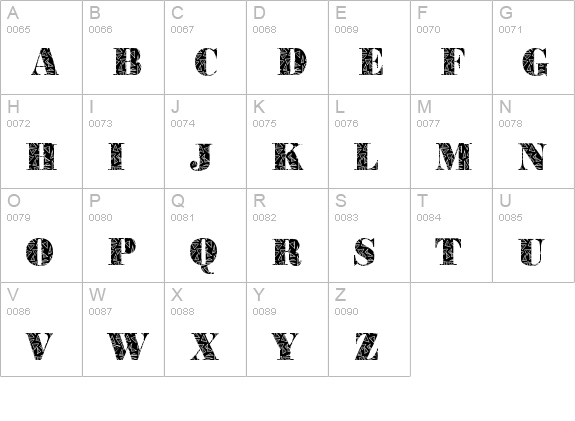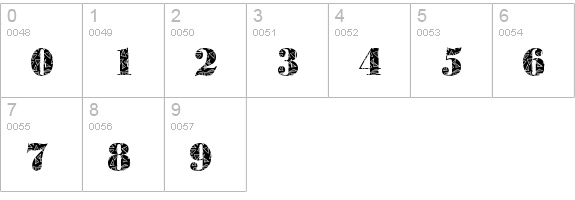
BodoniBrokenGlass-Regular Font Details
BodoniBrokenGlass-Regular is the standard, neutral variant in the BodoniBrokenGlass typeface family \xE2\x80\x94 well suited to general body text, paragraphs, and standard typographic work.
BodoniBrokenGlass-Regular font is a unique and eye-catching typeface that exudes elegance and sophistication. With its shattered glass-inspired design, this font adds a touch of edginess to any project. The broken glass effect creates a visually stunning look that is sure to make a statement. This font is perfect for creating bold headlines, striking logos, and modern graphic designs. Its clean lines and sharp edges give it a contemporary feel that is both stylish and versatile. Whether you're working on a branding project, poster design, or website layout, BodoniBrokenGlass-Regular font will help elevate your work to the next level. Best of all, this font is available for free download at FontsMarket.com. You can easily access and use BodoniBrokenGlass-Regular font in your projects without any cost. Don't miss out on this opportunity to add a touch of sophistication and creativity to your designs with BodoniBrokenGlass-Regular font.